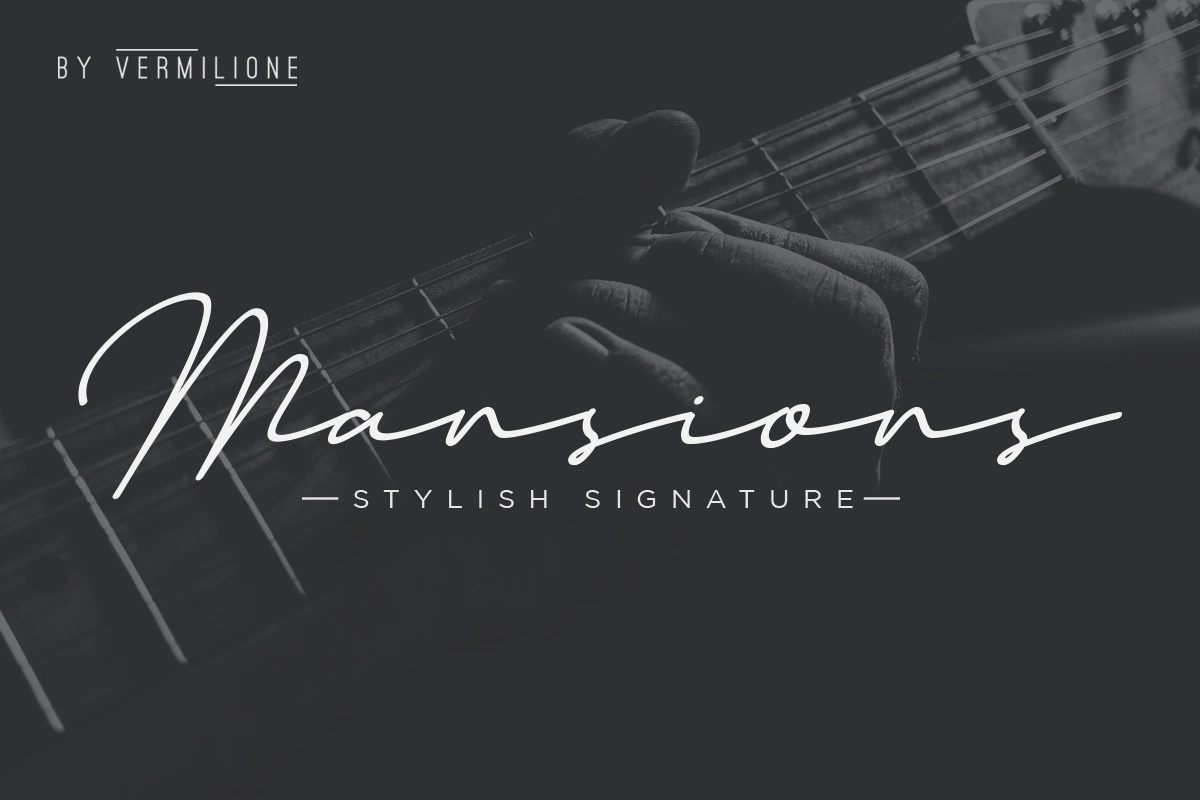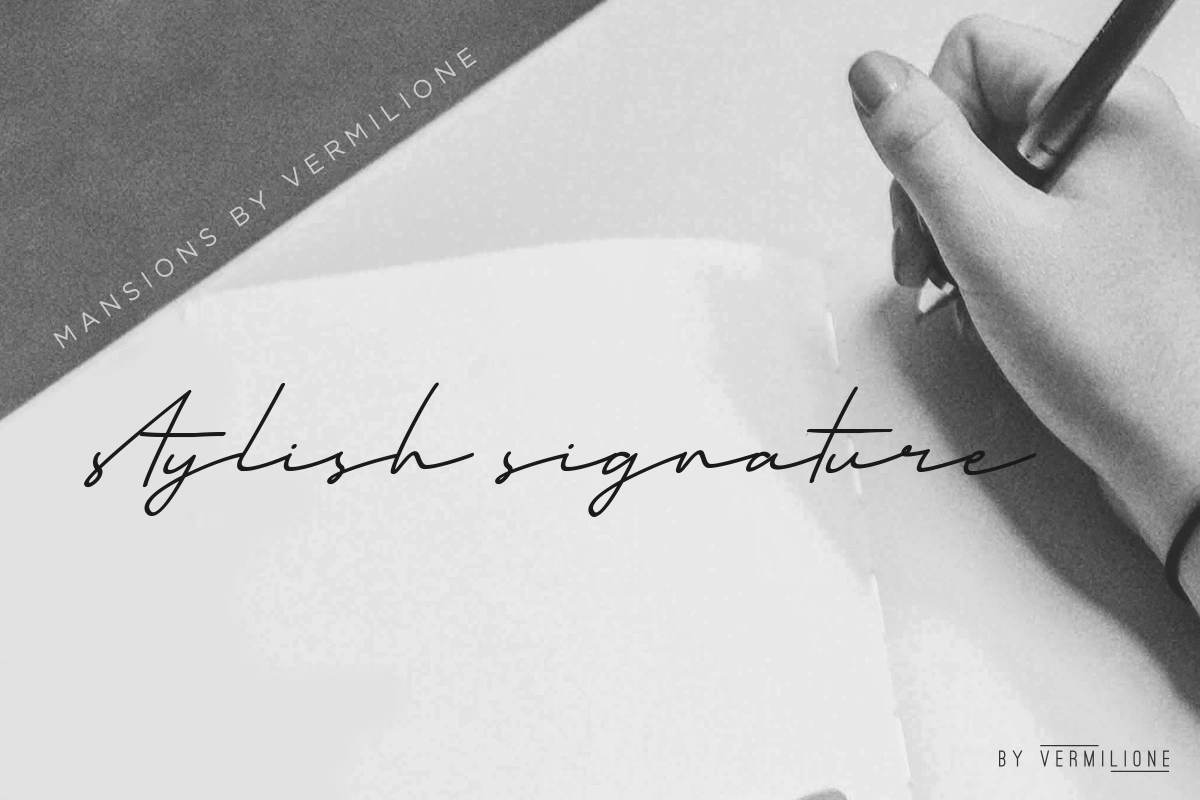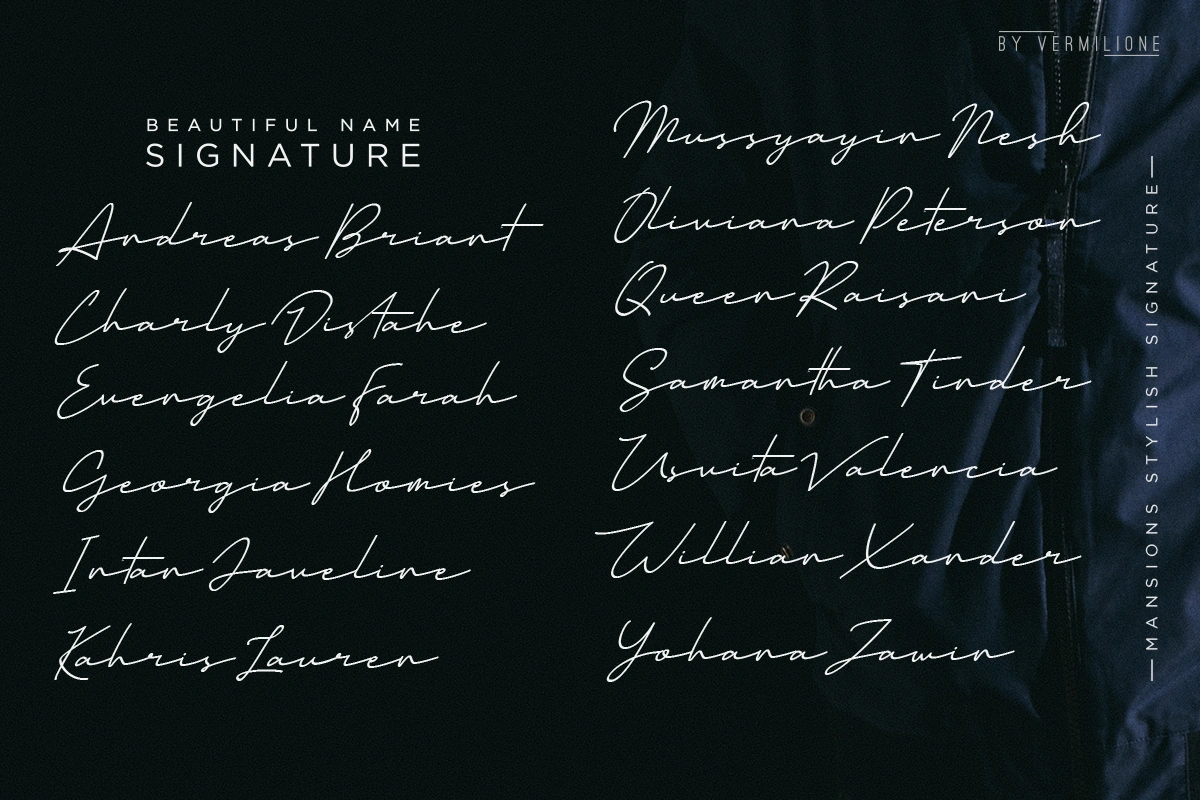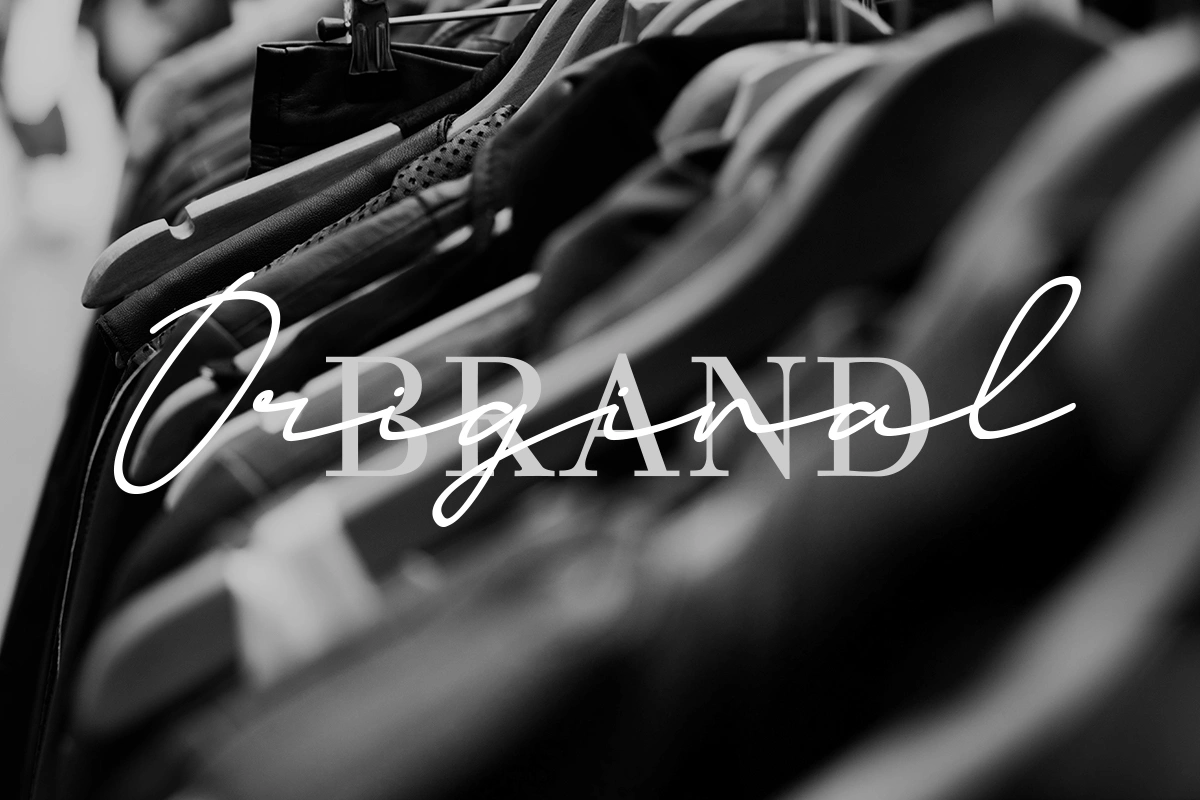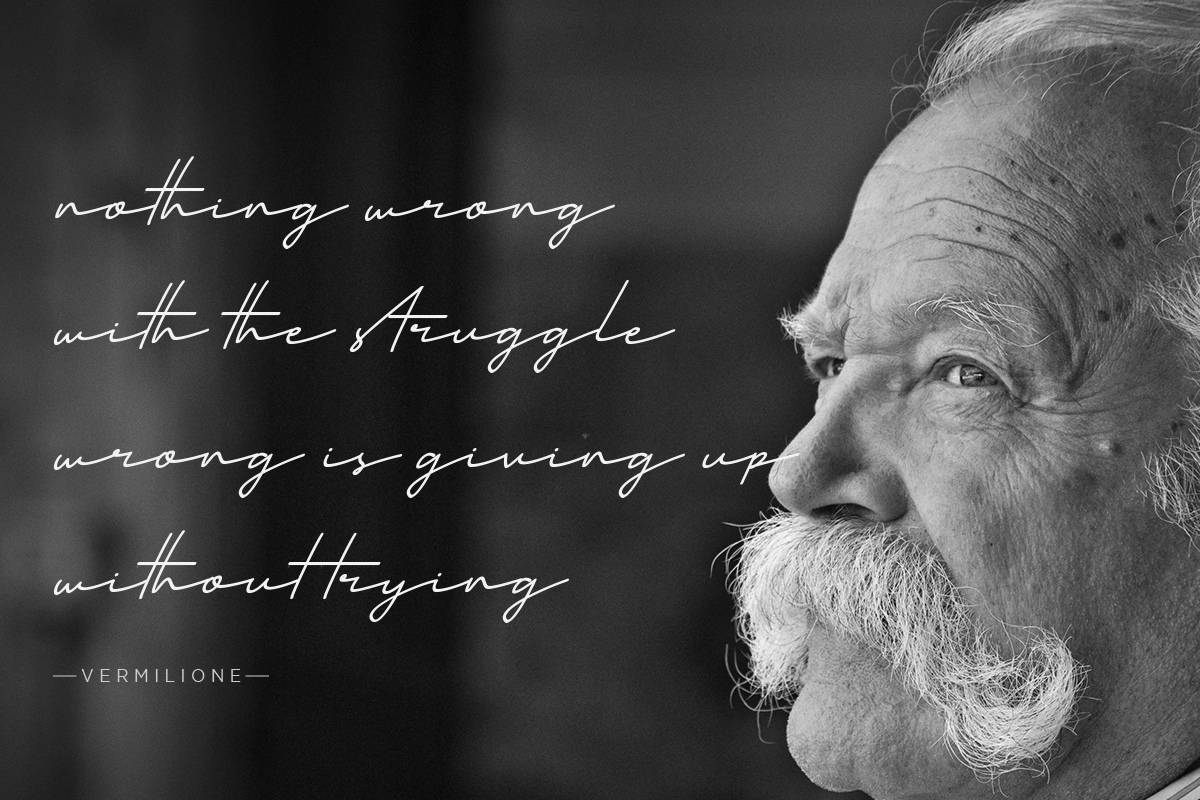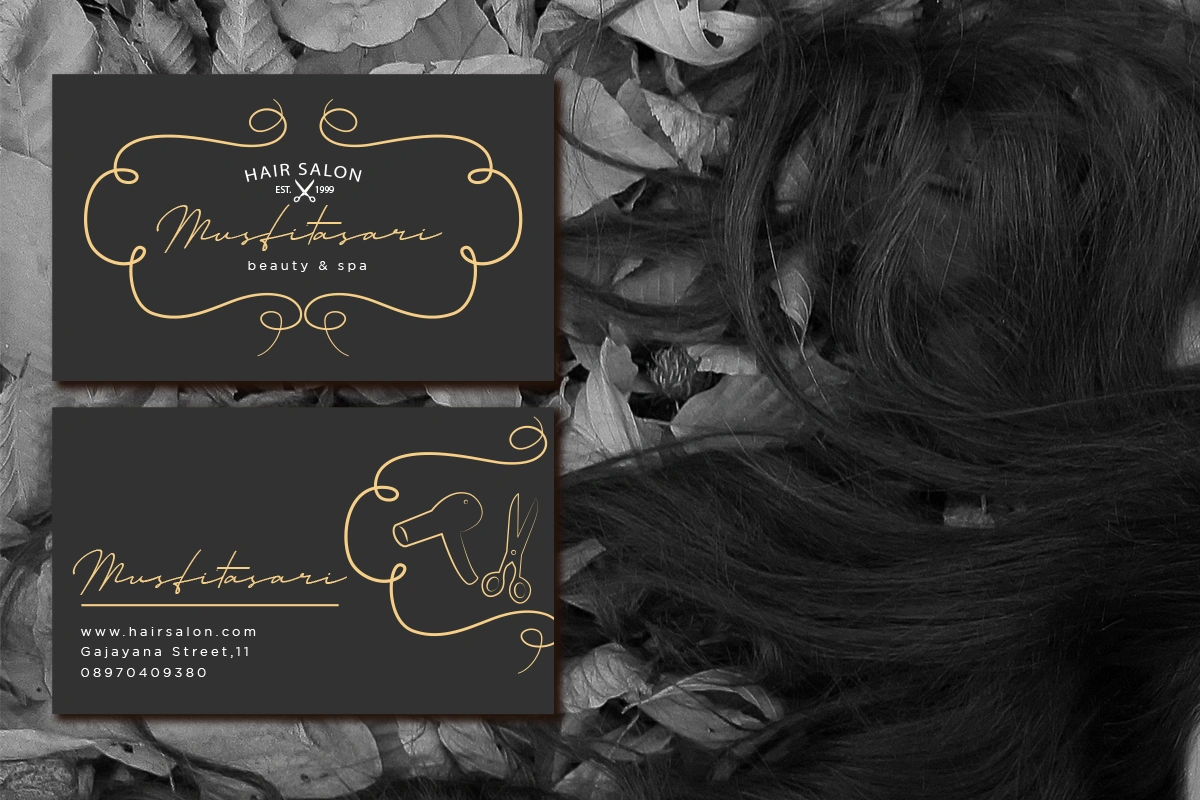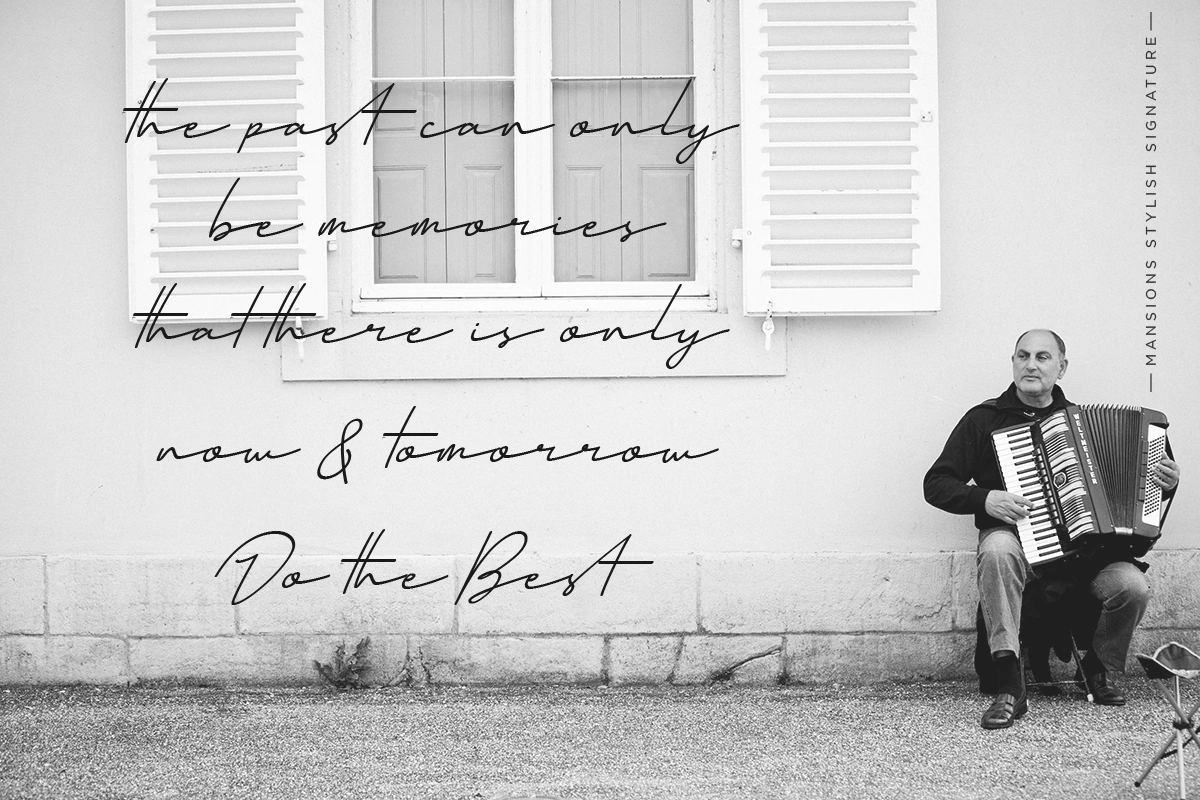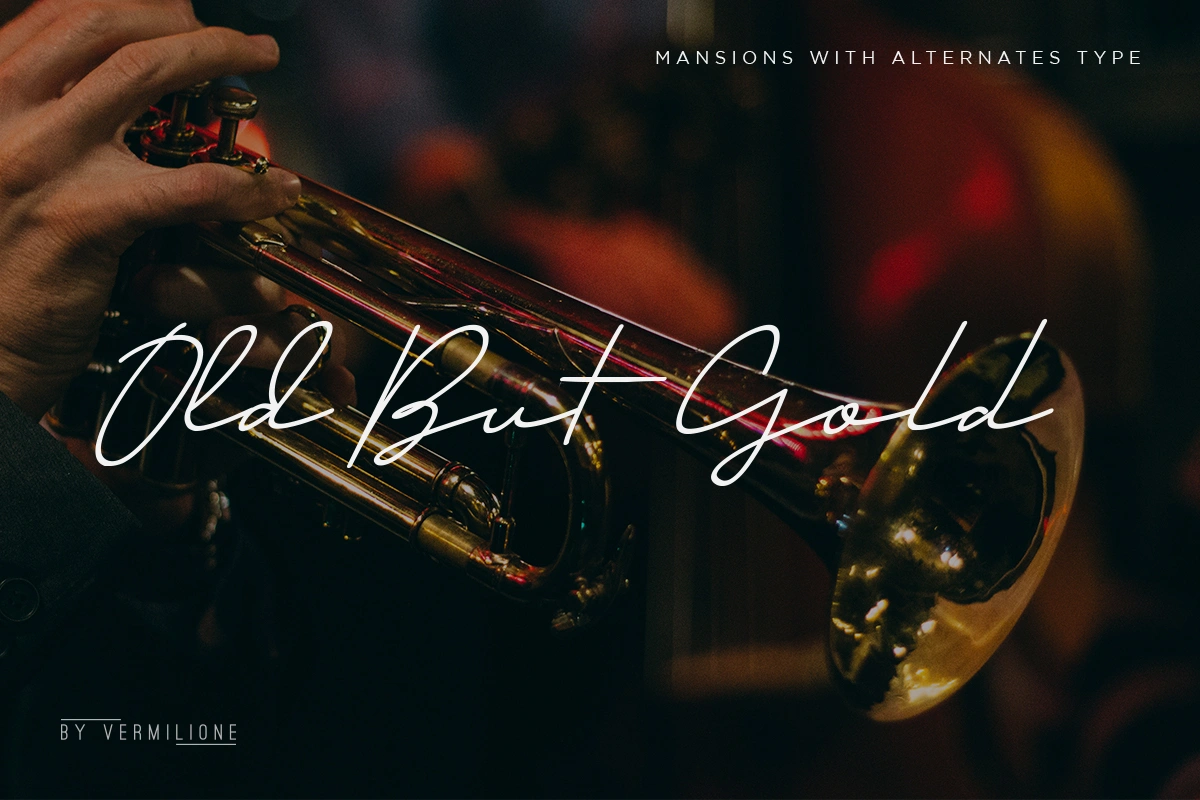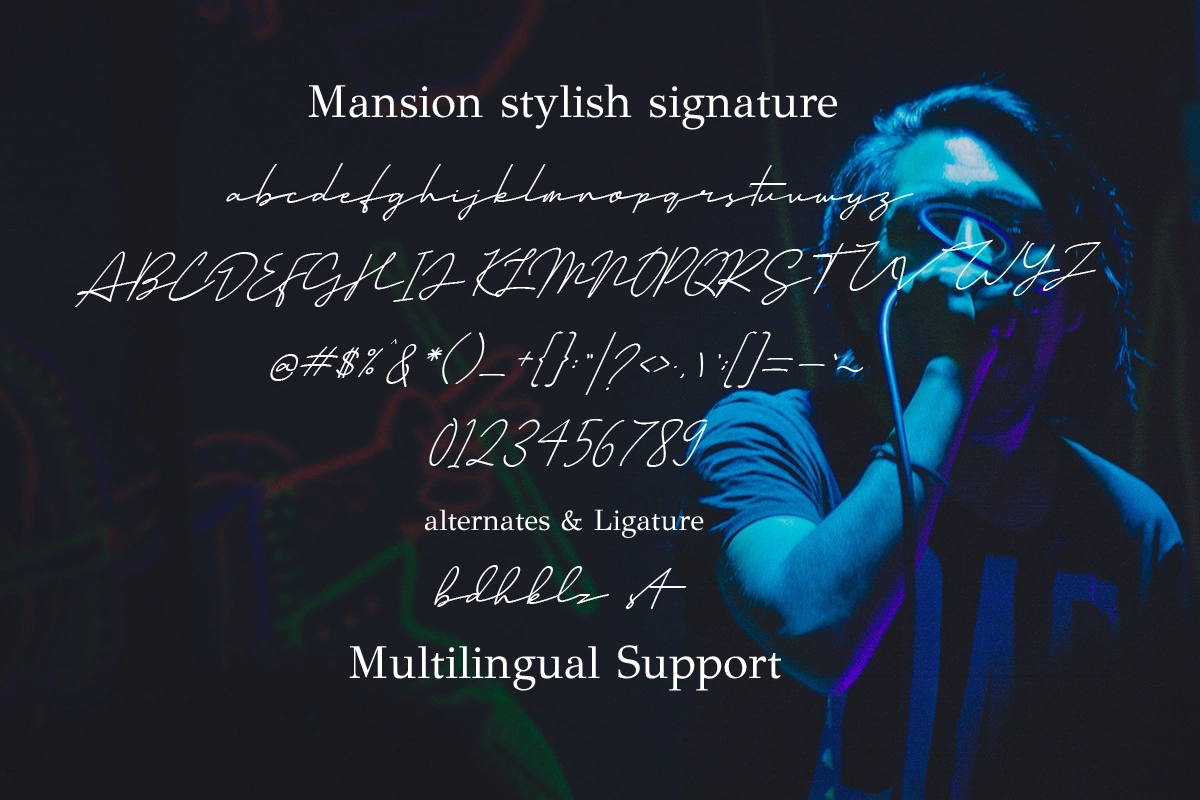
Mansions – Serif Font
Mansions ” is a handwritten signature script with a natural & stylish flow. This collection of scripts is perfect for personal branding. It was made with the intention to be used by Signature Photographers as a watermark for their Photography Business. But, this works well for many applications. Everything from personal branding & wedding invitations to advertising could benefit from this collection of signature fonts.
These typefaces work well for many different aesthetics. They work well with something like ‘cosmetics’ for example but would also work well with Liquor Labels, Signage, & any type of signature-styled logo.
Mansions is a must-have signature script that has a diverse set of alternates that will surely be used many times over in various projects in the future. This collection fills a void and separates itself from other scripts available.